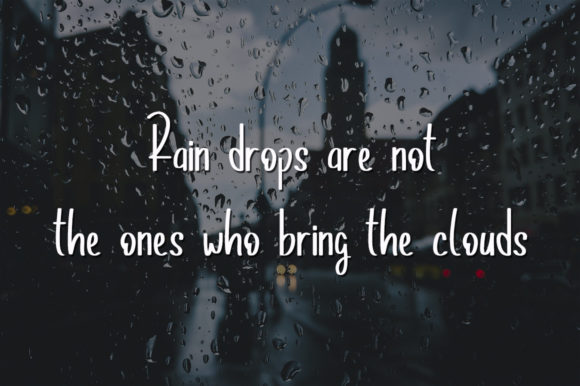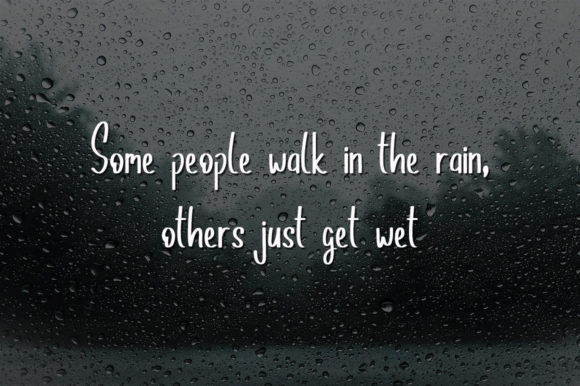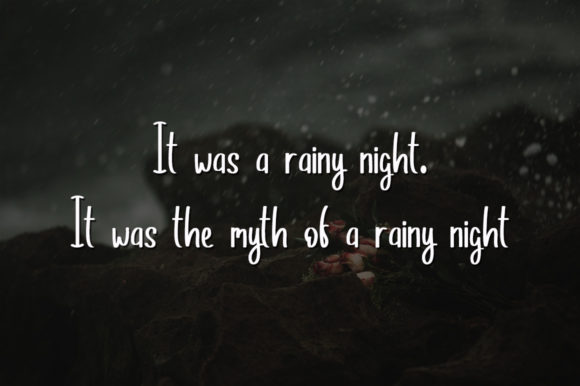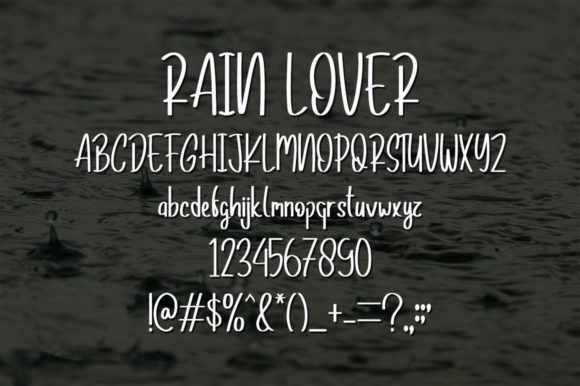
Introduction to Rain Lover Font
Have you ever been in a moment of pure creative bliss, where the rain is pouring outside and your imagination is running wild? You’re scribbling down ideas, sketching out designs, and envisioning the perfect visual representation of your thoughts. That’s exactly the kind of moment where the Rain Lover Font comes to life.
This beautiful handwritten font is designed to bring your creative projects to the next level, making them even more realistic and spectacular. With its unique charm and high-quality design, the Rain Lover Font is a valuable resource for designers looking to add a personal touch to their work.
Whether you’re working on a free design project or a high-end commercial venture, the Rain Lover Font is a must-have design resource. Its transparent background and versatile style make it perfect for a wide range of creative applications, from social media graphics to print materials and beyond.
- Unique and stylish font, ideal for those who love rainy days and want to add a touch of whimsy to their work.
- Designed to be used for various purposes, from branding and advertising to editorial and publishing projects.
Honest Review: Rain Lover Font
I recently stumbled upon the Rain Lover Font and I must say, it’s been a great addition to my design resource collection. As a designer, I’m always on the lookout for high-quality fonts that can elevate my creative projects.
The Rain Lover Font is a beautiful, modern script font that’s perfect for adding a touch of elegance to your designs. It features a transparent background, making it easy to pair with any background image or color.
- ⚠️ Limited character set, may not be suitable for extended text content
- ⚠️ May not be ideal for small font sizes, as it can appear blurry
Overall, I’m impressed with the Rain Lover Font. While it has some limitations, its unique design and high-quality aesthetic make it a valuable addition to my design resource collection. If you’re looking for a beautiful script font for your creative projects, I’d definitely recommend checking it out.
The Rain Lover Font is suitable for various creative projects, including: wedding invitations, baby shower invitations, birthday party invitations, and other social events. You can also use it in business presentations, marketing materials, and advertising campaigns. The font’s high-quality design and transparent background make it easy to use in a variety of contexts.